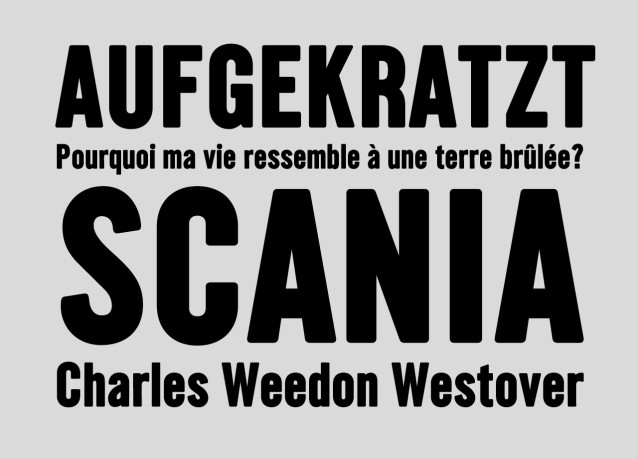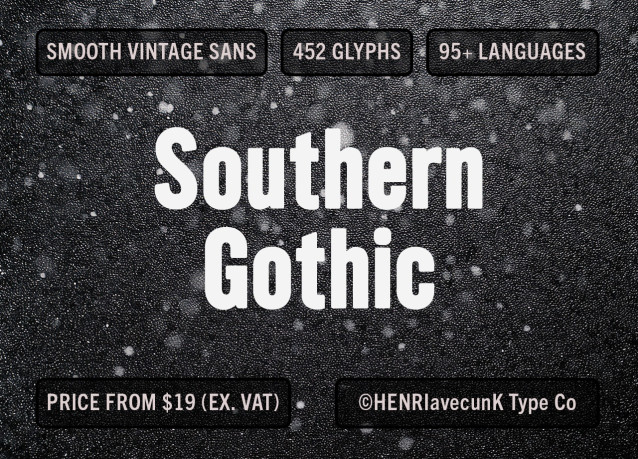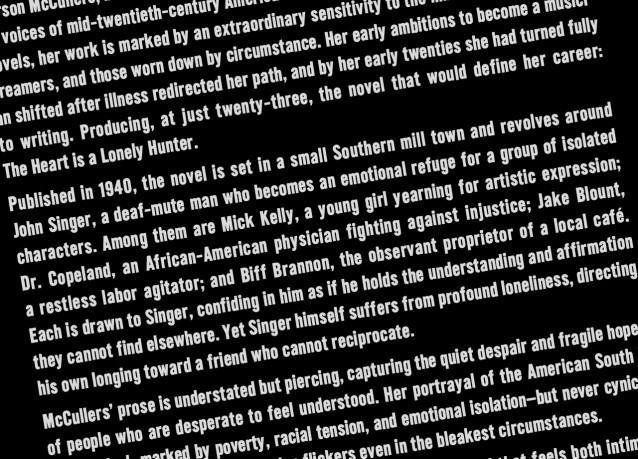
Southern Gothic Font
Southern Gothic Font is a simple and modern display font suitable for quotes, logos, headings, titles, and many more. Use it on any of your creative projects, and your designs will become outstanding!